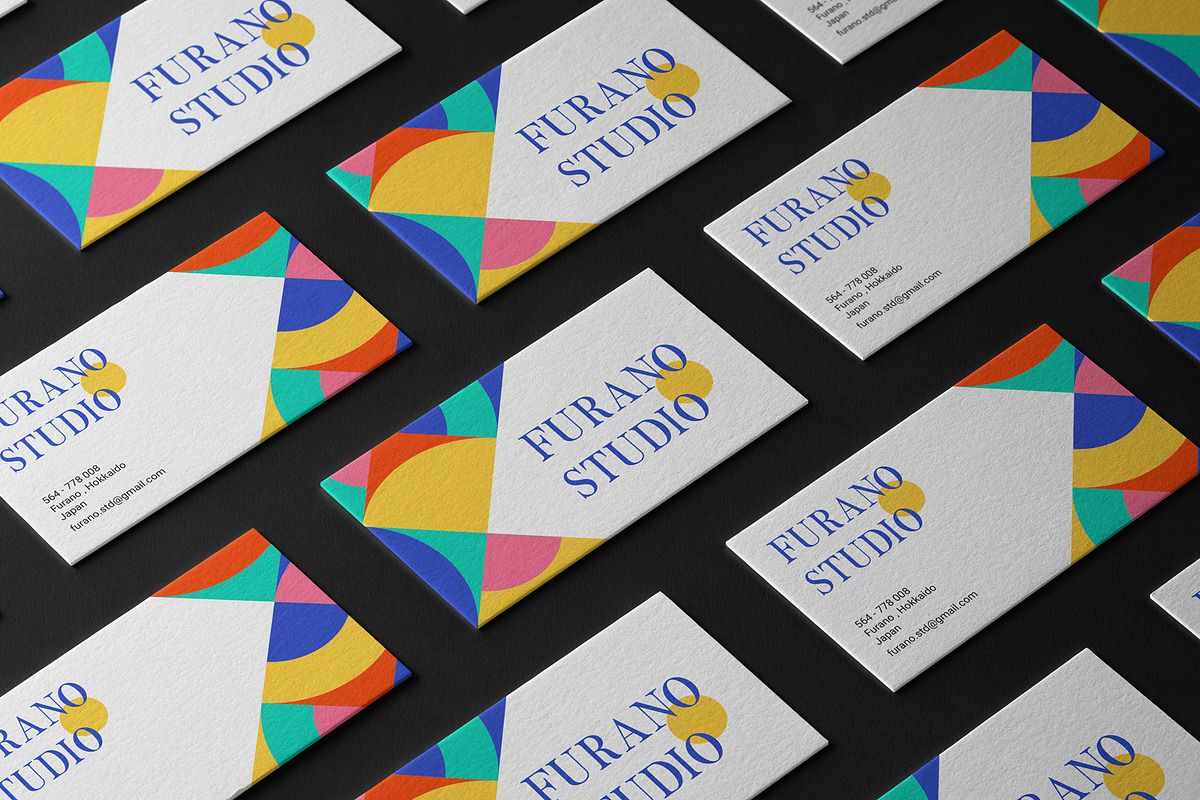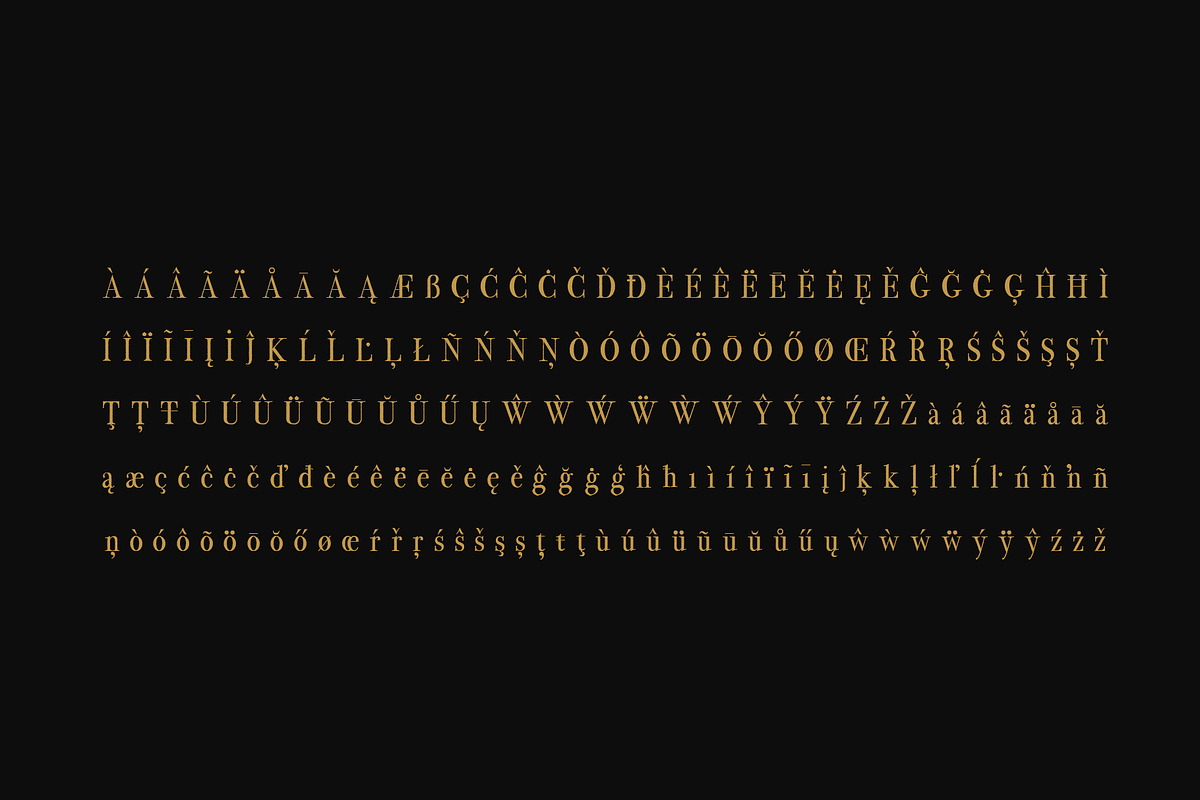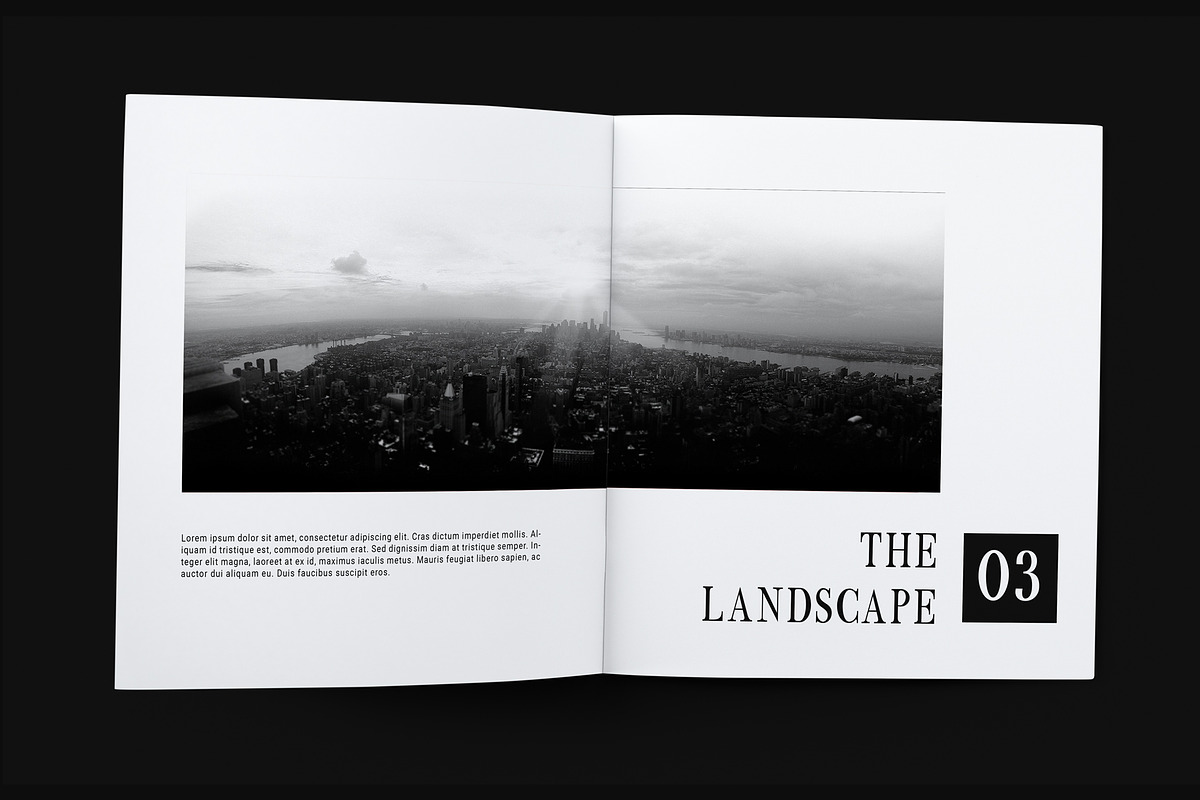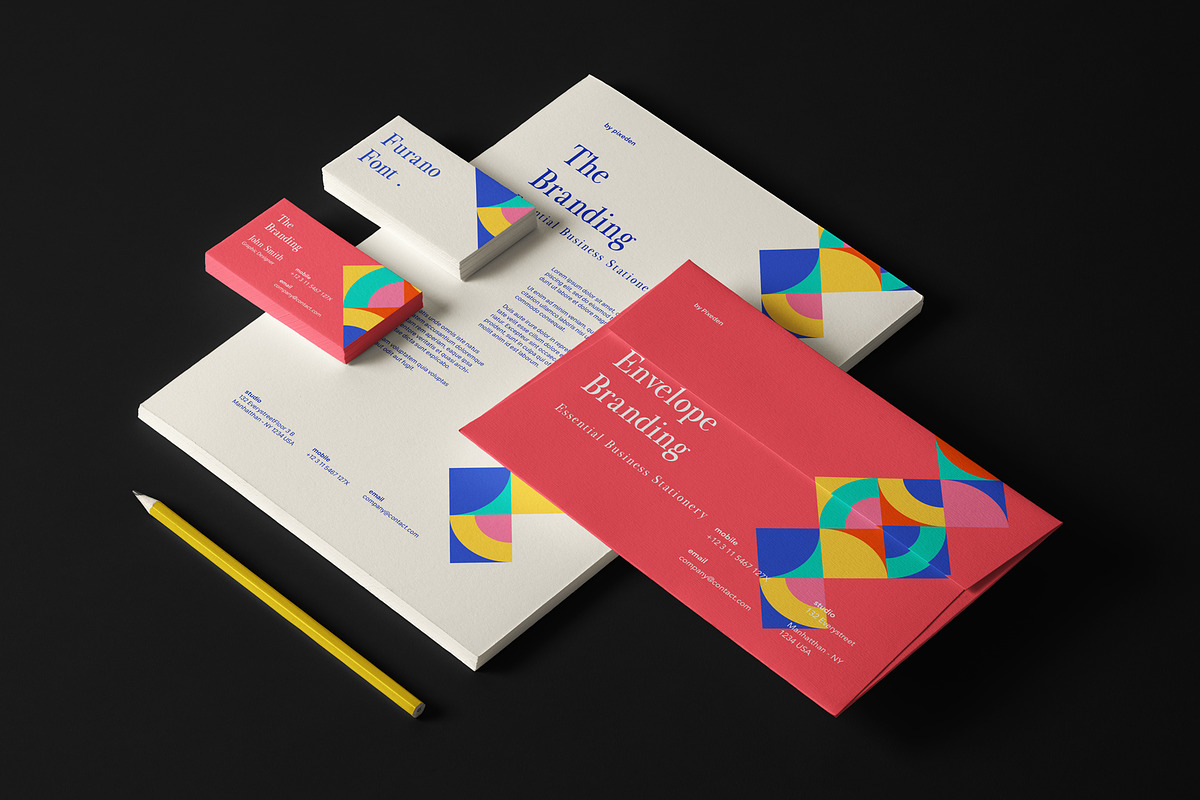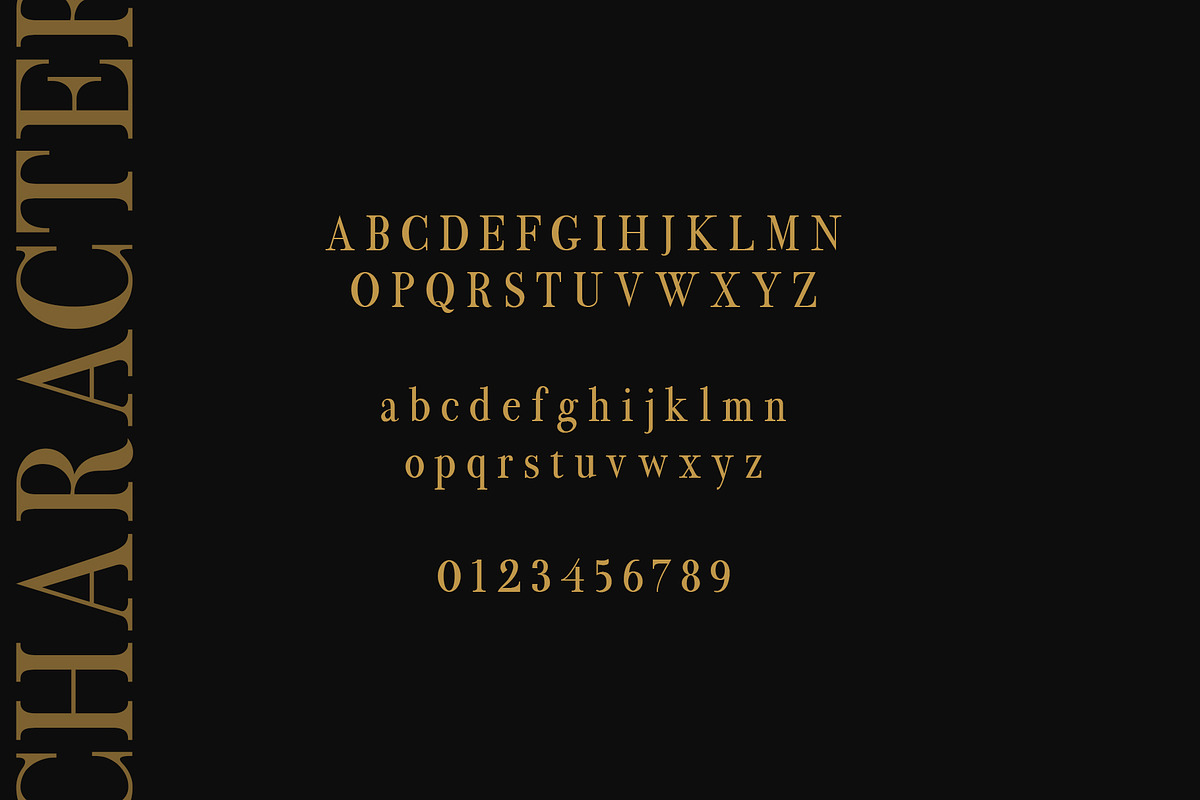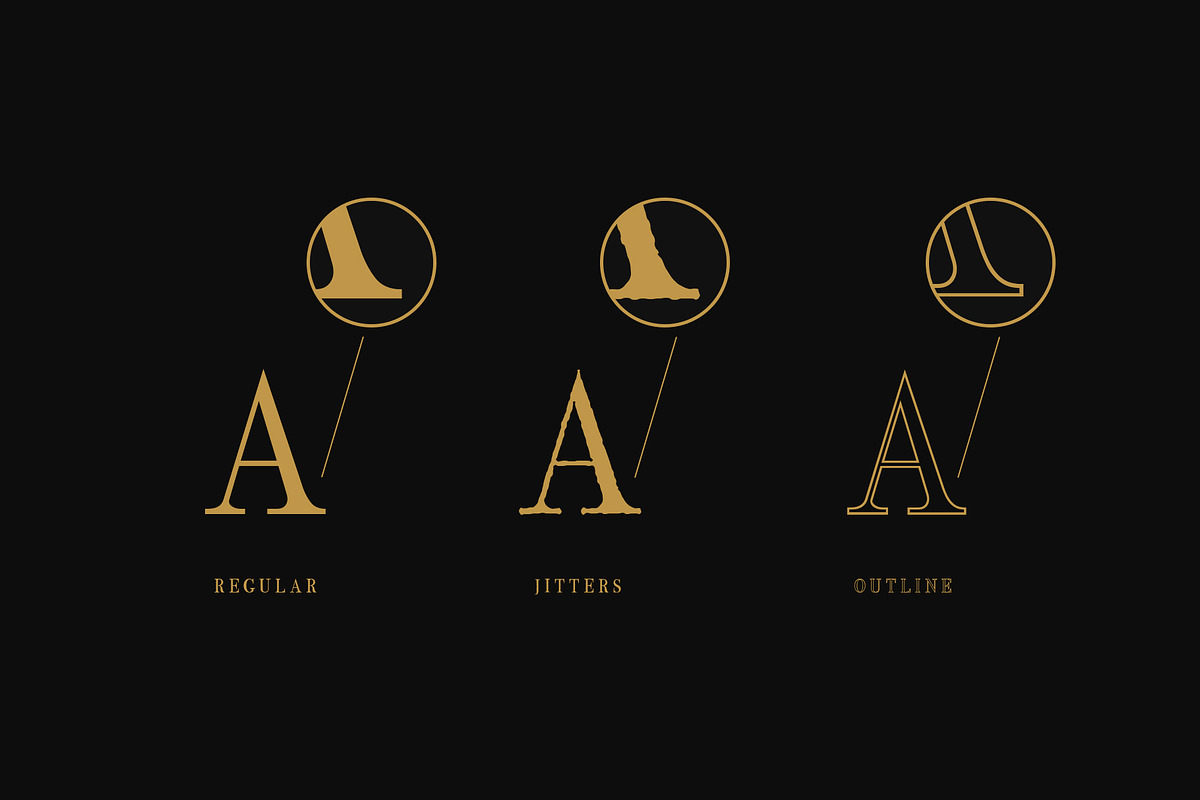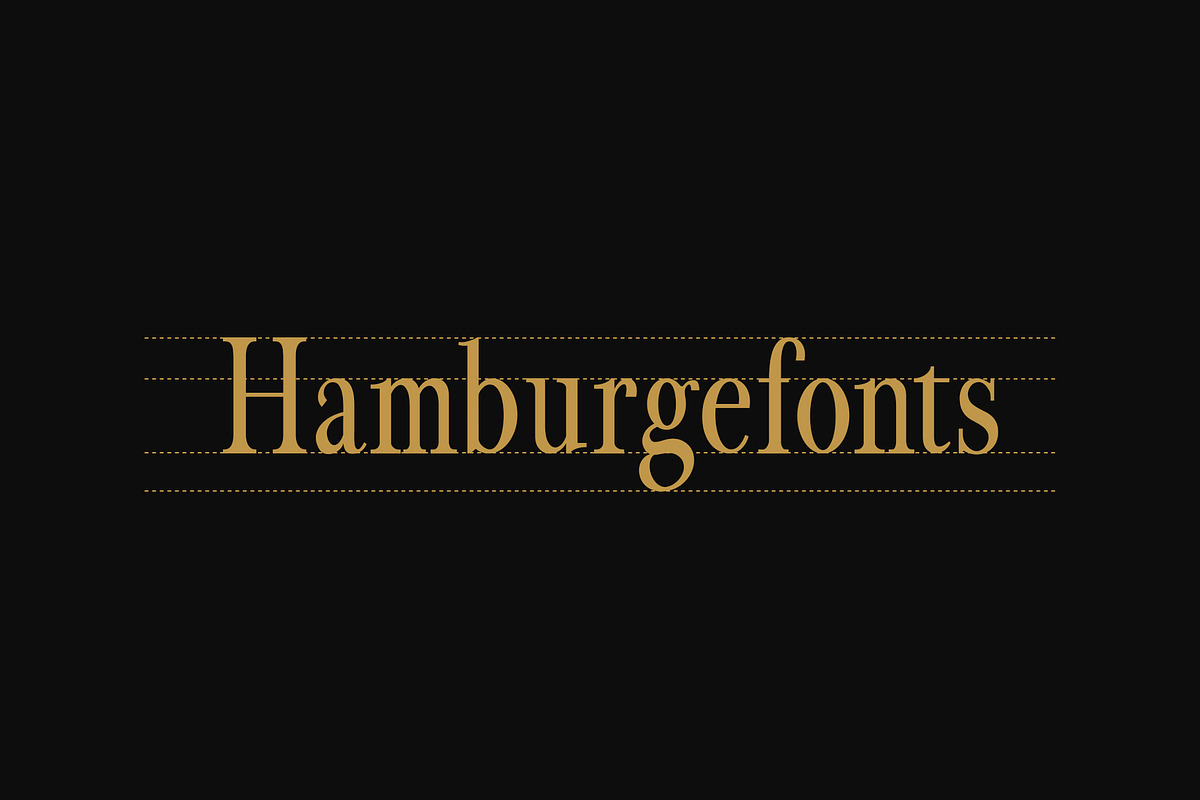
Furano font
Furano fontis a serif font that is elegant and simple with a modern vintage style, this font is inspired by a number of font books designed to be used for graphic design needs and others.
This font has 3 styles, namely: regular, jittler, and outline. which has 390 characters, ligature, and multilanguage support. This font can be used for Branding, Logo design, Posters, Cards, etc .
3 Style font : Regular , Jitter, & Outline
Multilanguage support
- which has 390 characters, ligature, and multilanguage support.
- Furano Regular
- Furano Jitters
- Furano Outline
Furano font by Emyself Design fits naturally into Branding, posters, packaging, typography.